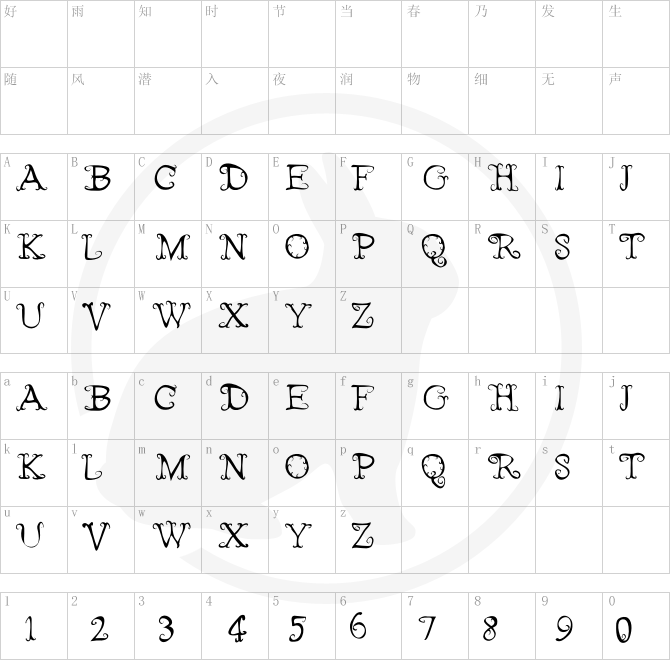
- Font Name:Fairies Wear Boots
Fairies-Wear-Boots.otf is a very beautiful artistic font, Fairies-Wear-Boots.otf is widely used in the design and printing of various books and pictures,Fairies-Wear-Boots.otf has a strong visual impact,Fairies-Wear-Boots.otf is a commonly used font in newspapers, magazines and books, and is used in posters, e-commerce Poster design, store design, logo design, font design and other fields.Fairies-Wear-Boots.